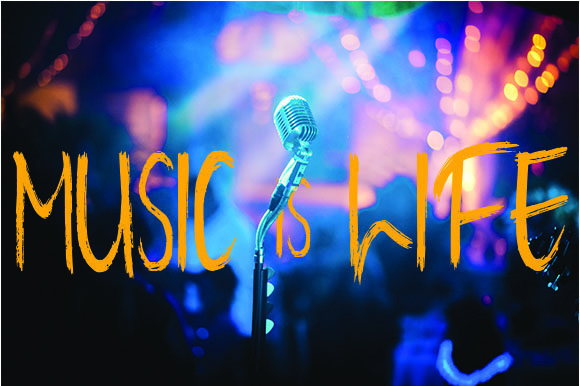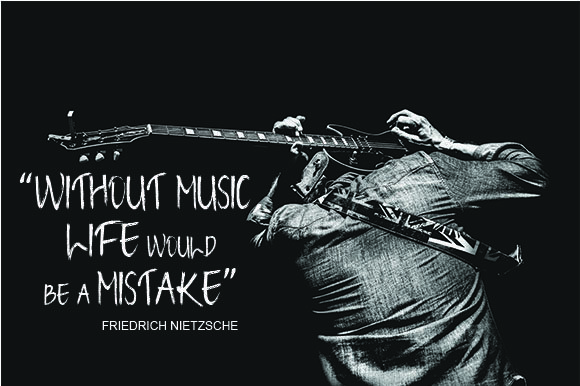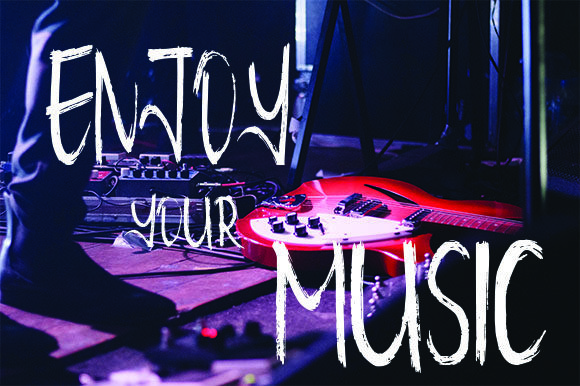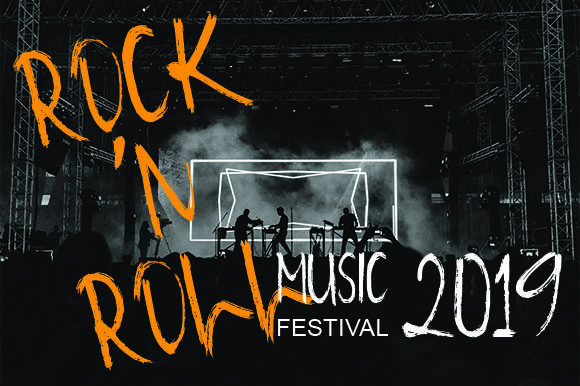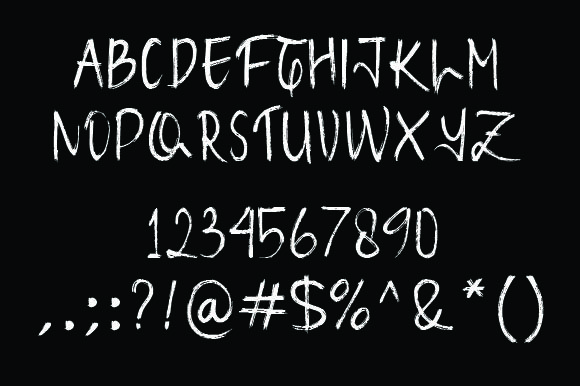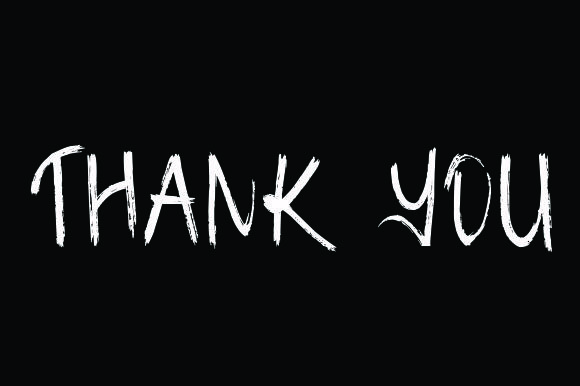
Introducing the Cross Out Font: Adding a Personal Touch to Your Designs
The Cross Out font is an exciting addition to the world of typography, offering a unique and handwritten style that can instantly elevate your designs. Whether you’re a designer, crafty DIY enthusiast, or simply someone looking for a creative way to express themselves, this font is sure to capture your attention. In this article, we’ll explore what makes the Cross Out font so special and how it can be used to add a natural touch to your logos, posters, flyers, and more.
The Unique Appeal of Handwritten Fonts
Handwritten fonts have a special charm that digital fonts often lack. They bring a sense of authenticity and personality to a design, making it feel more approachable and human. The Cross Out font takes this to the next level with its distinctive, cursive style that exudes warmth and character. Its irregularities and quirks give it a natural, hand-crafted feel that’s perfect for designs that need to stand out from the crowd.
What Makes the Cross Out Font So Versatile?
One of the best things about the Cross Out font is its versatility. Its handwritten style is suitable for a wide range of design applications, from creative projects like logos, posters, and flyers to more practical uses like signage and packaging. The font’s clear and legible script makes it easy to read, even at smaller sizes, which means you can use it for both headlines and body text.
Key Features of the Cross Out Font
• Handwritten style: The Cross Out font boasts a unique, cursive script that’s full of character and personality.
• Natural look: The font’s irregularities and quirks give it a natural, hand-crafted feel that’s perfect for designs that need to stand out.
• Legible: Despite its handwritten style, the Cross Out font is clear and easy to read, even at smaller sizes.
• Versatile: Suitable for a wide range of design applications, from creative projects to practical uses.
How to Use the Cross Out Font in Your Designs
So, how can you use the Cross Out font to add a personal touch to your designs? Here are a few ideas to get you started:
• Logos: Use the Cross Out font to create a unique and memorable logo that reflects your brand’s personality.
• Posters and flyers: Add a touch of elegance and sophistication to your posters and flyers with the Cross Out font.
• Social media graphics: Use the font to create eye-catching social media graphics that stand out from the crowd.
• Signage and packaging: The Cross Out font is also suitable for more practical uses like signage and packaging.
Tips for Getting the Most Out of the Cross Out Font
To get the most out of the Cross Out font, here are a few tips to keep in mind:
• Experiment with colors: The Cross Out font looks great in a variety of colors, so don’t be afraid to experiment and find the perfect hue for your design.
• Mix and match: Combine the Cross Out font with other fonts to create a unique and visually appealing design.
• Play with sizes: The Cross Out font looks great at a range of sizes, from large headlines to smaller body text.
The Cross Out font is a unique and exciting addition to the world of typography. Its handwritten style and natural look make it perfect for designs that need to stand out from the crowd. With its versatility, legibility, and charm, this font is sure to become a favorite among designers and crafty DIY enthusiasts alike. So why not give it a try and see how it can add a personal touch to your designs?